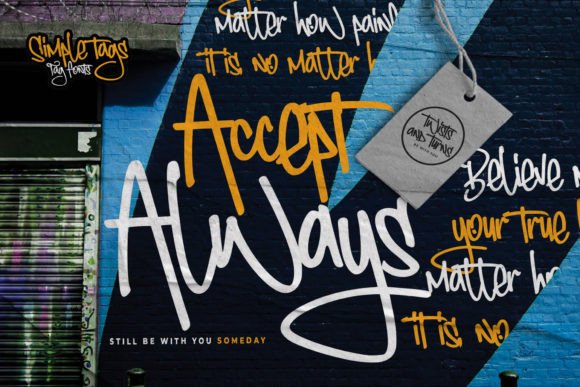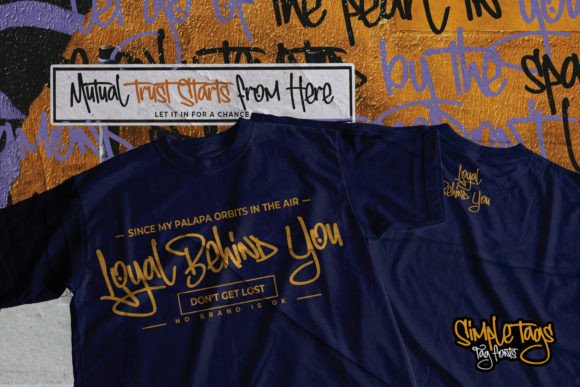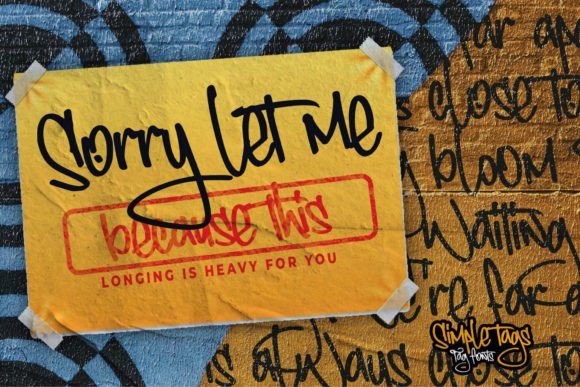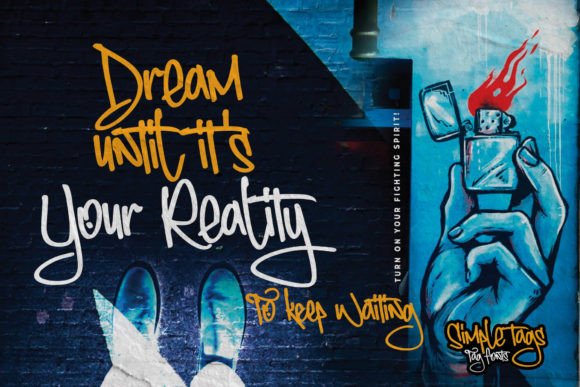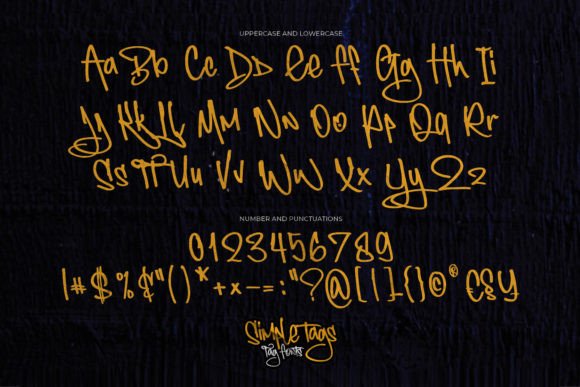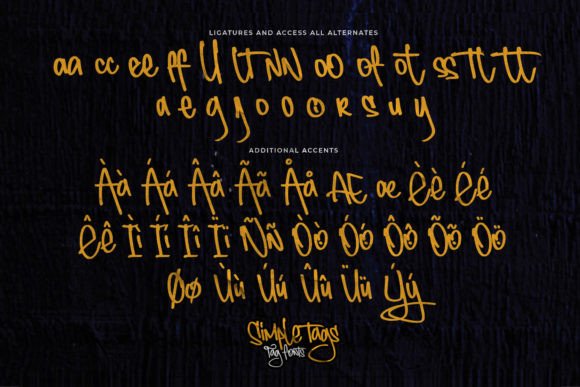
Introduction to Simple Tags Font Font
Fonts play a crucial role in design, and the Simple Tags Font font is a typeface that brings both character and versatility to any project. Whether you’re working on a branding project, a website, or a print design, the Simple Tags Font font offers a unique style that can elevate your work.
Simple Tags is a tag display font with a natural feel.
This handmade font will make your design beautiful and natural It is perfect for any design project such as Invitation, logo, book cover, craft, or other design purposes.
Key Features of Simple Tags Font Font
Why Choose Simple Tags Font Font?
The Simple Tags Font font is more than just a typeface – it’s a design tool that helps you communicate your message with style and clarity. Its unique character set and versatile design make it suitable for a wide range of applications, from elegant invitations to bold headlines.
With its carefully crafted letterforms and balanced proportions, the Simple Tags Font font ensures readability and visual appeal across all mediums.
What makes Simple Tags Font font special?
The Simple Tags Font font stands out with its unique design, exceptional readability, and versatility across various design applications.